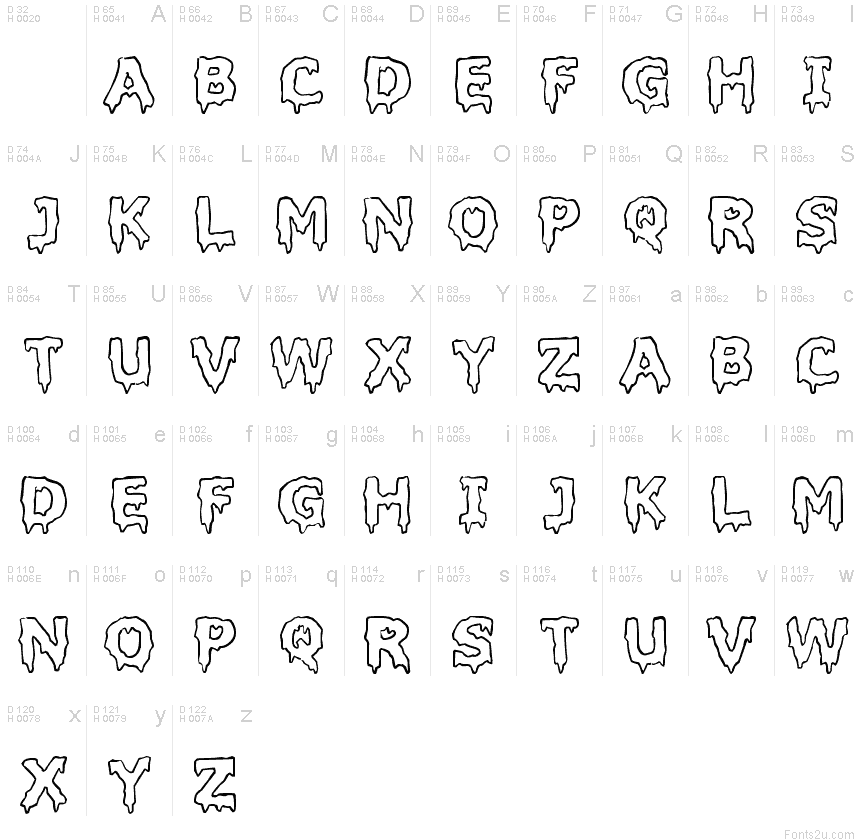
Liquidism
Liquidism by J. Fischer is a free horror display font shaped like wobbling outlined letters that sag into drips and hooked points. The uneven outer contour keeps the whole word looking wet and unstable, so the scare factor comes from the silhouette rather than from extra decoration.
That makes it a natural pick for Halloween flyers, haunted house signage, spooky party invites, horror game titles, and themed social posts. Because the outlines stay open and the drips repeat across the alphabet, Liquidism can frame short headlines, logo-style wordmarks, or poster captions without losing its gooey monster-movie character.